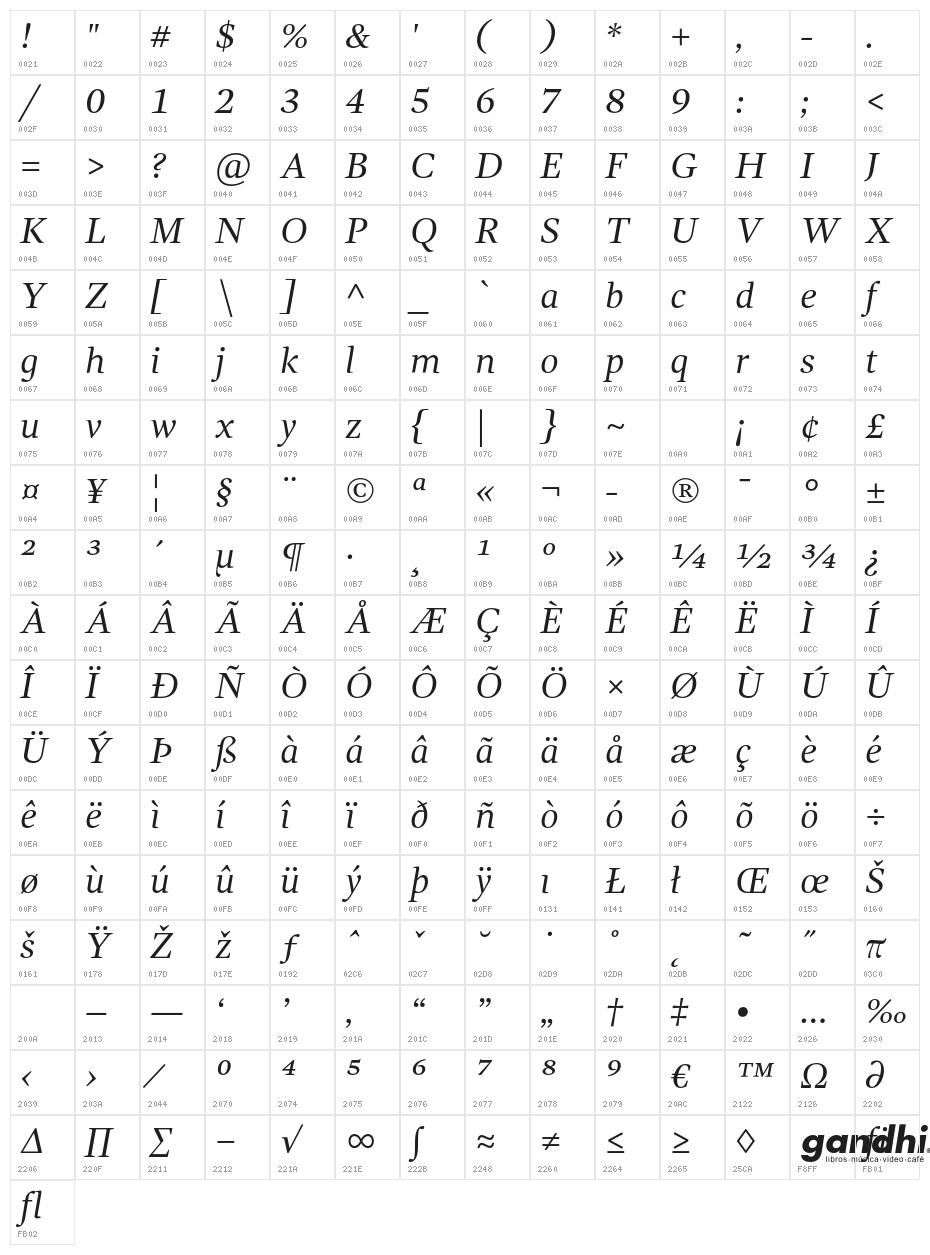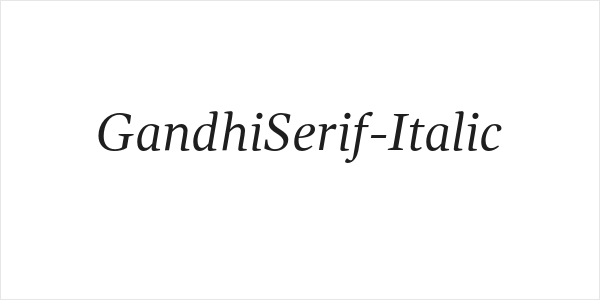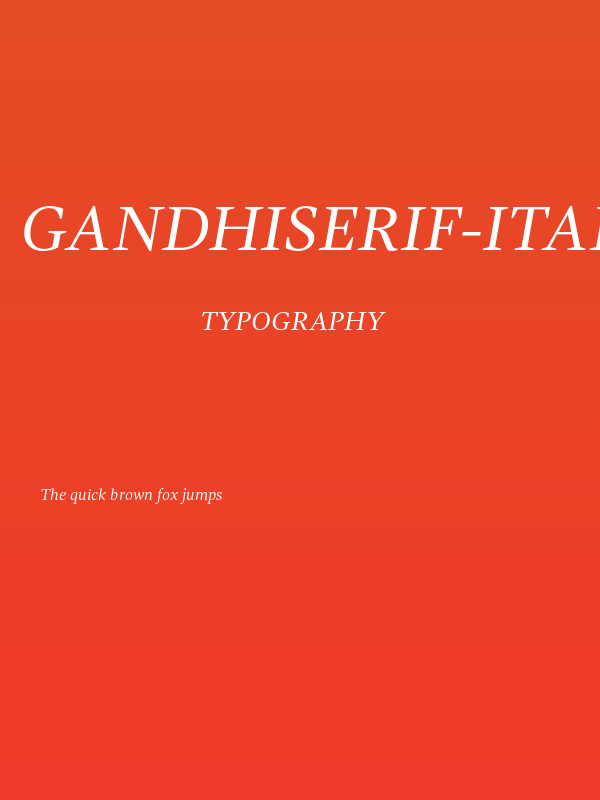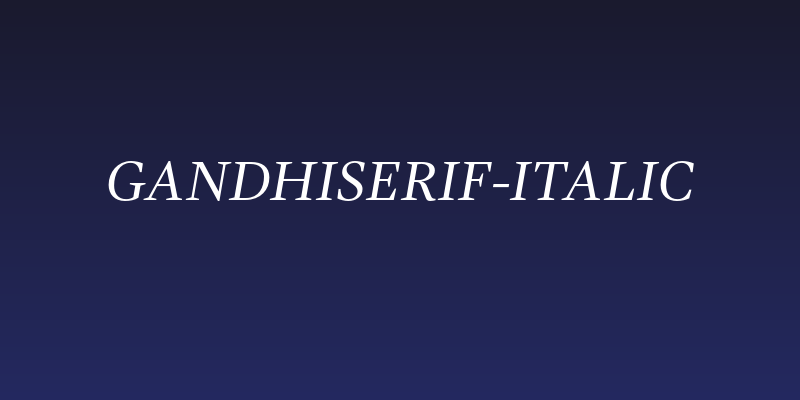
GandhiSerif-Italic Font
GandhiSerif-Italic Description
This font exhibits a classic serif style with elegant, flowing lines and a slight slant, indicative of its italic nature. The serifs are pronounced yet refined, adding a touch of sophistication and readability. The uppercase letters are well-proportioned, while the lowercase letters maintain a consistent flow, enhancing the font's legibility. The numerals are clear and distinct, complementing the overall design. Special characters are thoughtfully integrated, maintaining the font's cohesive look. The font's balance between traditional serif elements and modern italic styling makes it versatile for various applications.
| Proposed Projects | Ideal for editorial design, book covers, formal invitations, and branding projects that require a touch of elegance and tradition. |